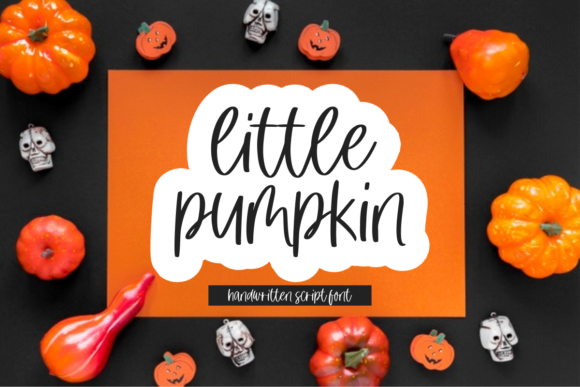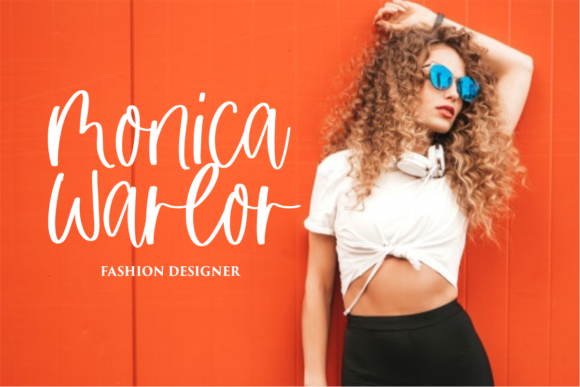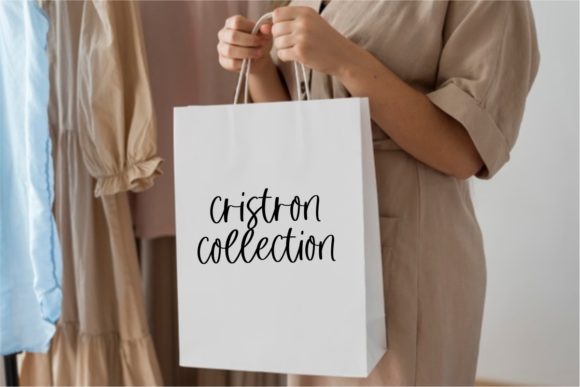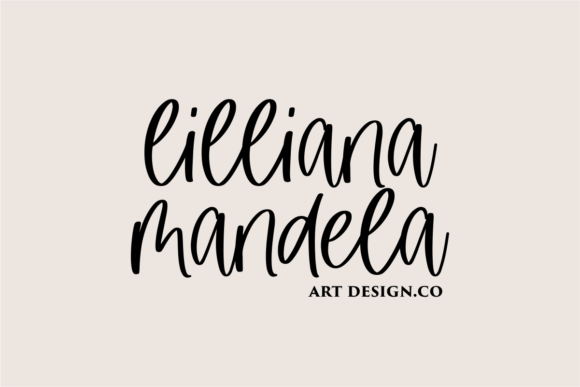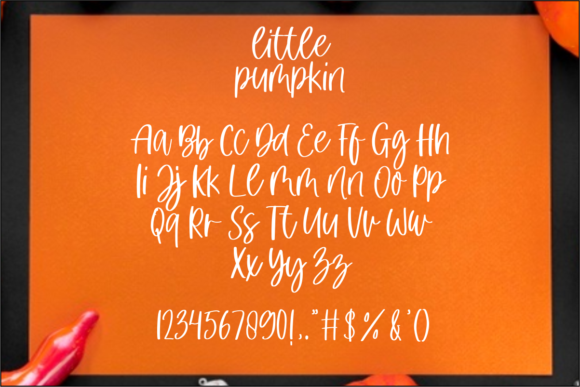
Little Pumpkin Font
Little Pumpkin is a relaxed, flowing and casual handwritten font. Whether you’re looking for fonts for Instagram or calligraphy scripts for DIY projects, this font will turn any creative idea into a true piece of art!